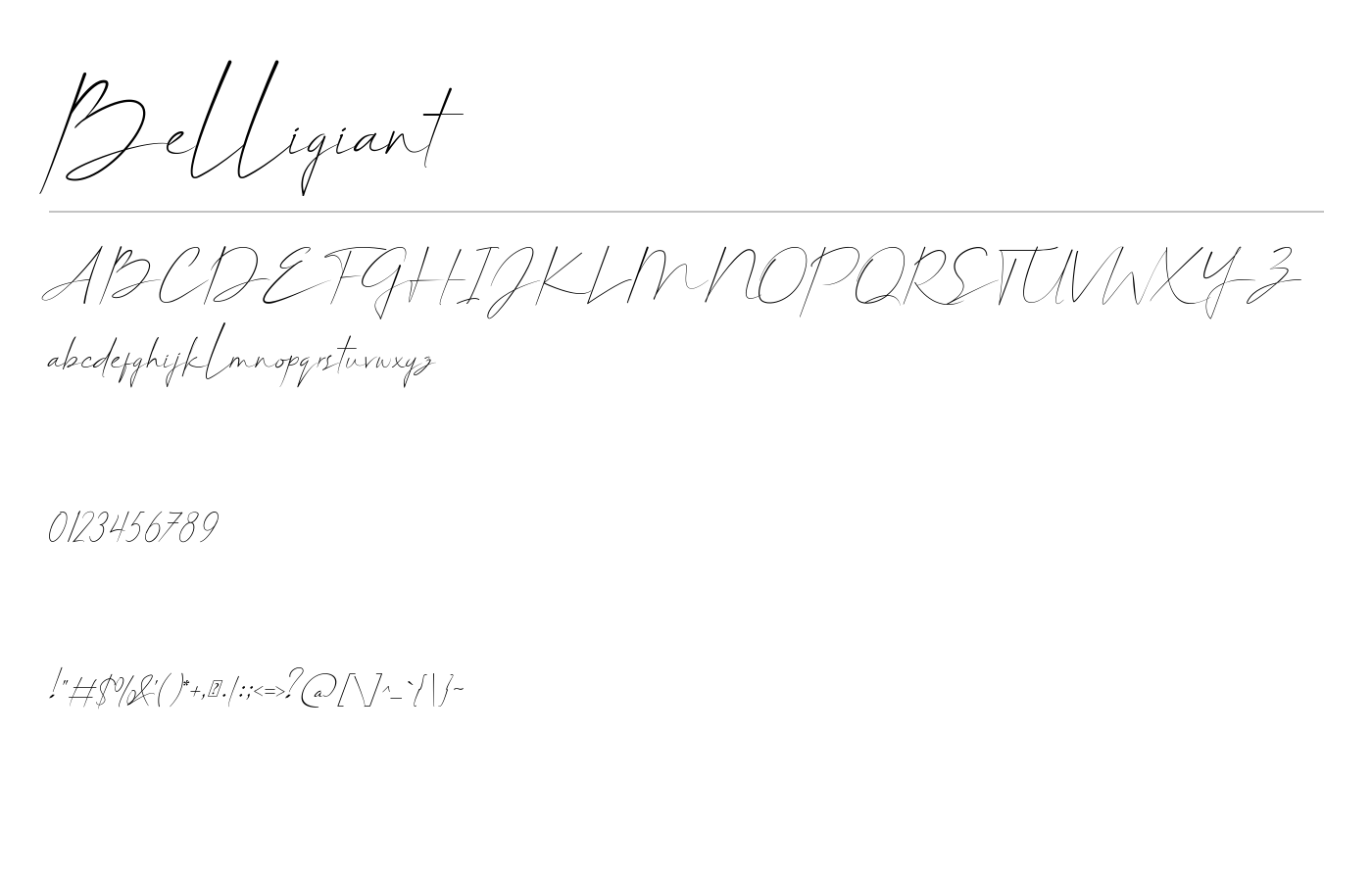
Belligiant is a delicate, elegant script font characterized by its thin, airy strokes and graceful, flowing letterforms. With a light weight and a handwritten style that feels personal and refined, it works wonderfully for sophisticated branding, invitations, and artistic designs that seek a stylish yet understated look. Its fine lines and casual charm make it ideal for adding a touch of elegance without overwhelming the design.
Belligiant Font
About Belligiant Font